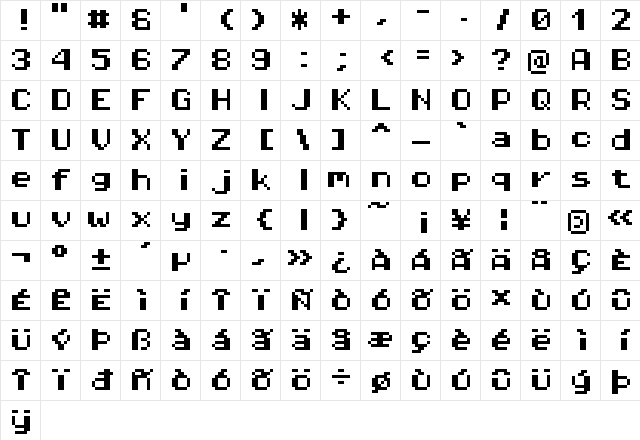
Complete Pixel Operator Mono HB 8 Regular glyph index. Displaying only characters natively supported by Pixel Operator Mono HB 8 Regular font.
Pixel Operator Mono HB 8 is rooted in pixel-grid construction, making it a natural fit for game UI, retro computing aesthetics, and digital nostalgia projects.
Pro Tip: Use Pixel Operator Mono HB 8 at sizes that align with its pixel grid for the sharpest rendering - scaling to non-integer multiples can introduce unwanted blur.